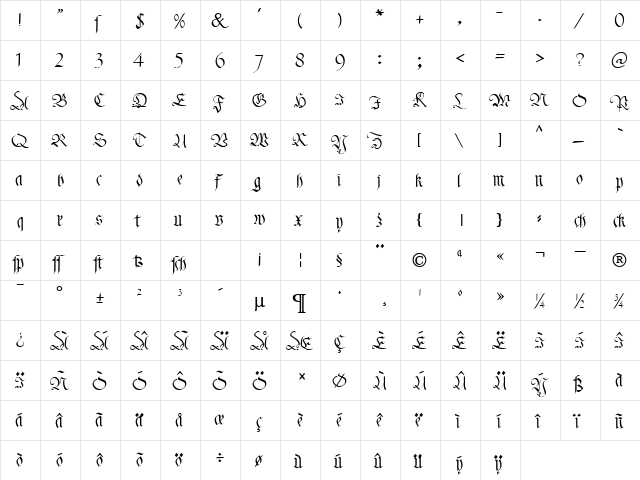
KL Fraktur1 DB Normal
Design Context for KL Fraktur1 DB Typeface
KL Fraktur1 DB draws on the rich tradition of blackletter calligraphy, with dense, angular strokes that evoke medieval manuscripts and old-world craftsmanship.
Well-suited to band logos, craft beer branding, tattoo lettering, and heritage-themed identities.
Font Pairing: Pair with a clean neutral sans-serif for body copy to let KL Fraktur1 DB's character lead without overwhelming the composition.
Pro Tip: Use KL Fraktur1 DB sparingly at large sizes. Even a single word set in blackletter can define the visual register of an entire design.